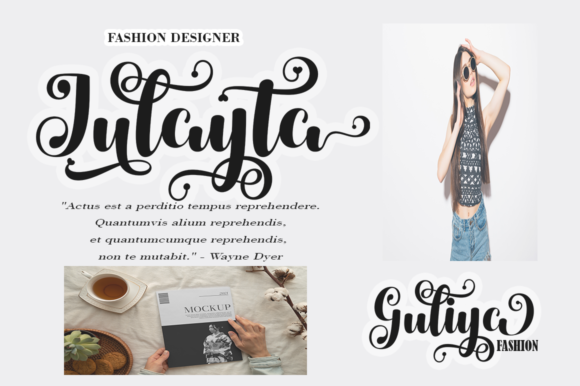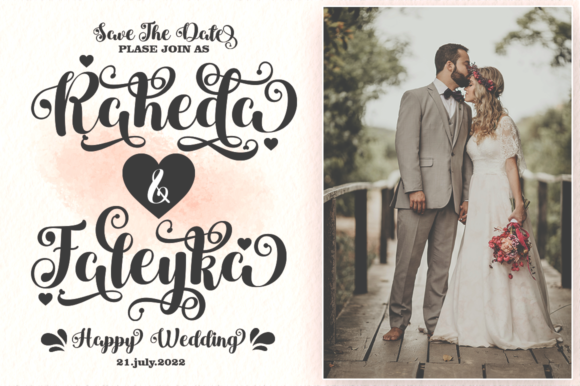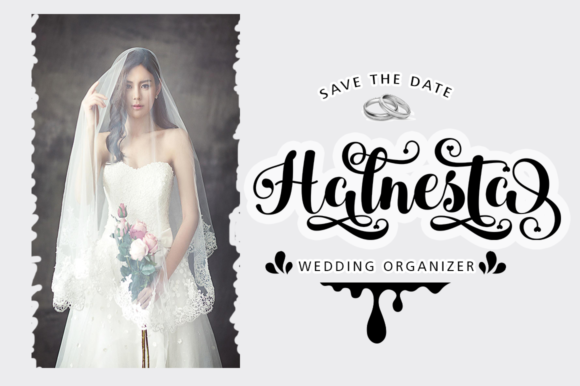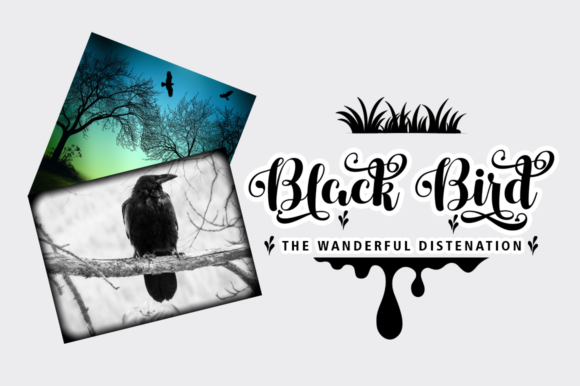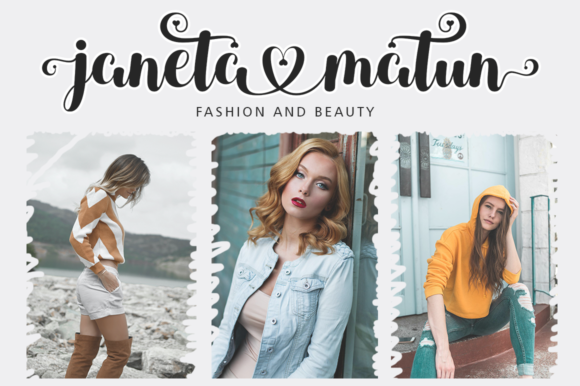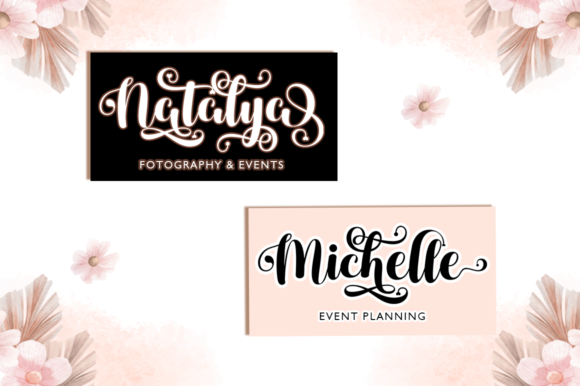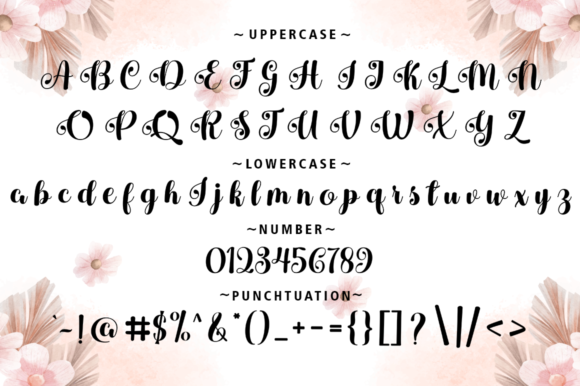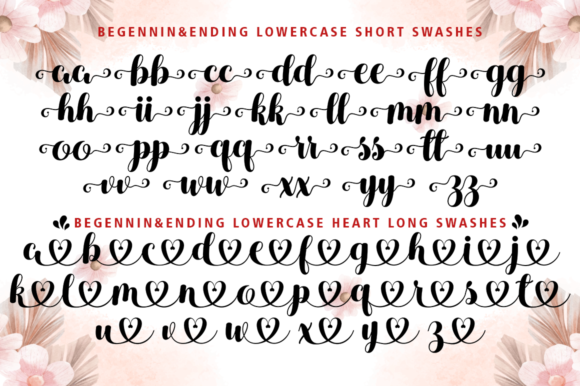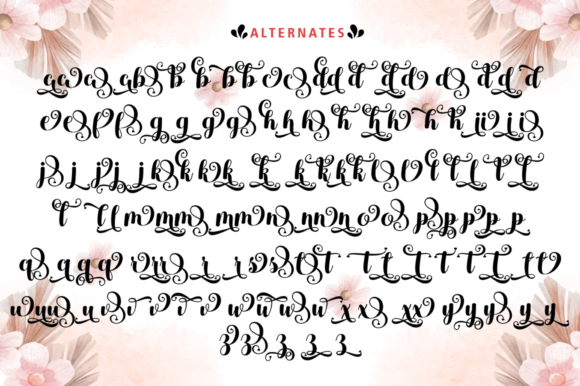
Bubirta Font
About Bubirta Font
Bubirta is a stunning handwritten font that effortlessly flows with love, adding a touch of beauty and personalization to a wide range of designs. Its enchanting charm makes it particularly suitable for special occasions, enhancing elements such as wedding invitations, thank-you cards, greetings, logos, and more.
This font’s handwritten style brings a unique and personalized touch to designs, making it an ideal choice for wedding-related materials. Bubirta’s flowing characters contribute to the romantic atmosphere of wedding invitations, creating a visually captivating and heartfelt representation of the special day. The font’s beauty extends to thank-you cards, providing a warm and personal expression of gratitude to loved ones.
For general greeting cards, Bubirta elevates the overall aesthetic with its delightful handwritten flow. Whether used for birthdays, celebrations, or heartfelt messages, the font enhances the sentiment, making the cards more visually appealing and emotionally resonant.
In logo design, Bubirta stands out as a distinctive and charming choice. Its handwritten elegance adds character to brand identities, making logos more memorable and engaging. The font’s versatility allows it to adapt to various industries, from lifestyle and fashion to events and services.
The PUA encoding of Bubirta adds a layer of accessibility for designers. With easy access to all glyphs and swashes, customization becomes a seamless process. This feature enhances the font’s usability, providing designers with the creative freedom to tailor their designs according to their vision.
Beyond its use in wedding-related materials and logos, Bubirta proves adaptable to a variety of design contexts. Its beauty shines on social media graphics, blog posts, and other digital content, contributing to a consistent and aesthetically pleasing visual presence.
In conclusion, Bubirta is more than just a font; it’s a vessel for conveying love and personalization in design. Whether gracing wedding invitations, thank-you cards, greetings, logos, or various other projects, this beautiful handwritten font adds a touch of elegance and sentiment. The PUA encoding further enhances its appeal, making it a valuable asset for designers seeking a versatile and love-infused typeface.